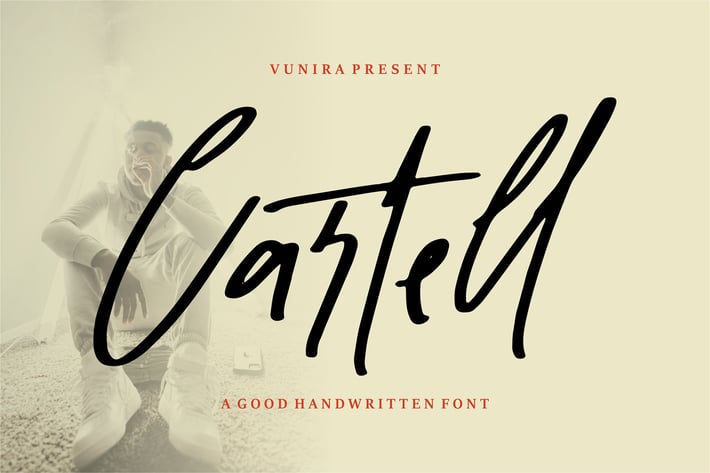
Cartel | Script Handwritten Font
Cartel | Script Handwritten Font with a calligraphy style, So beautiful on invitation like greeting cards, branding materials, business cards, quotes, posters, and more!